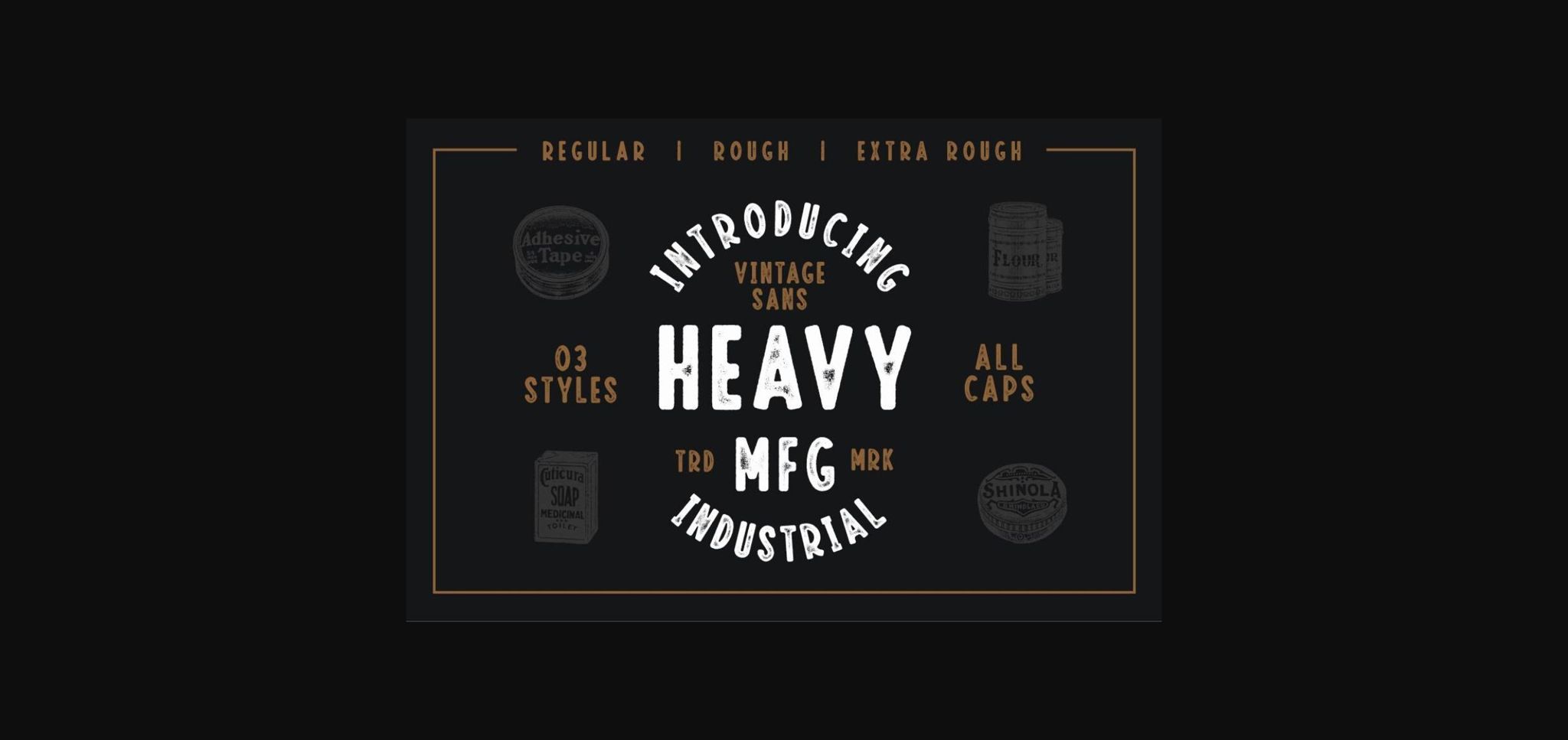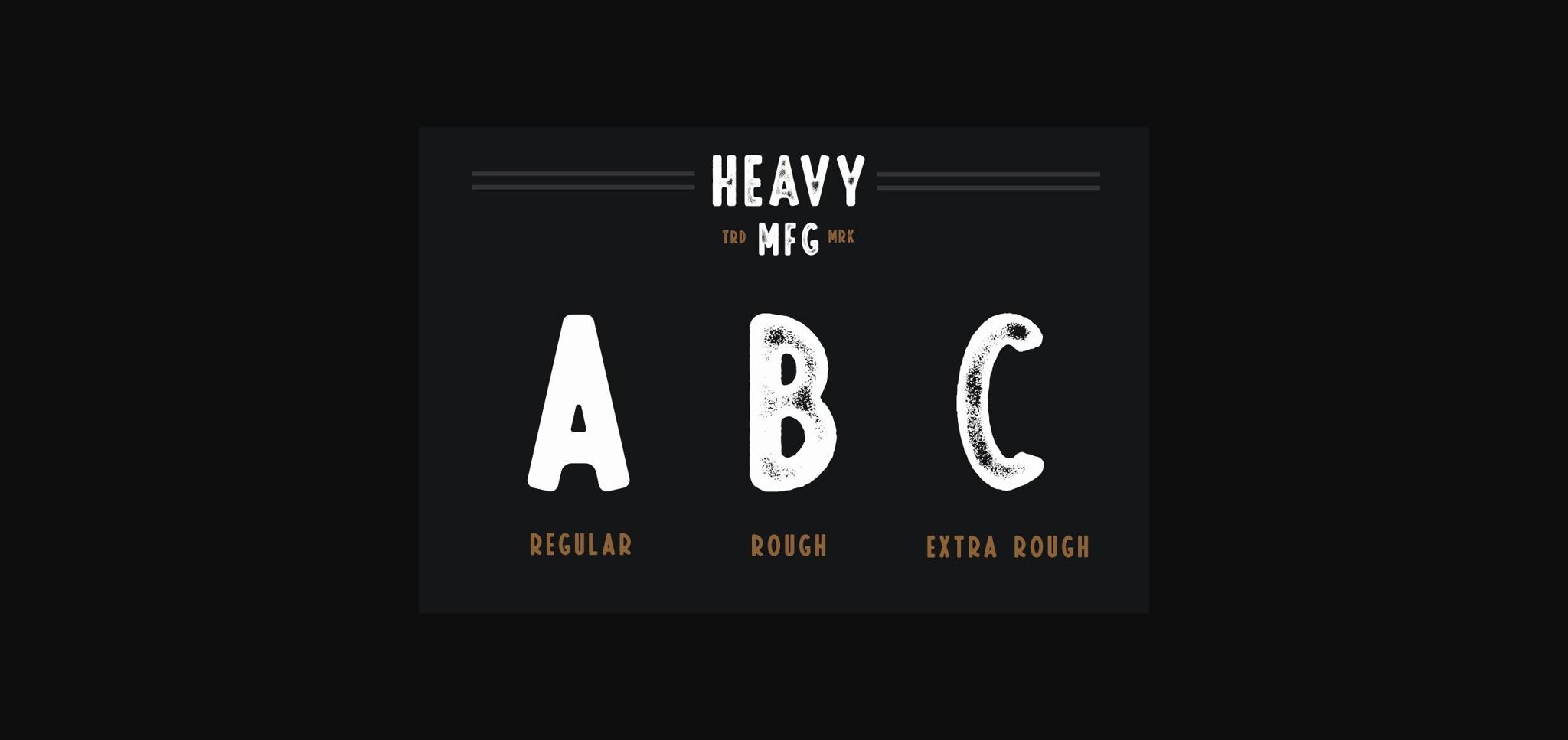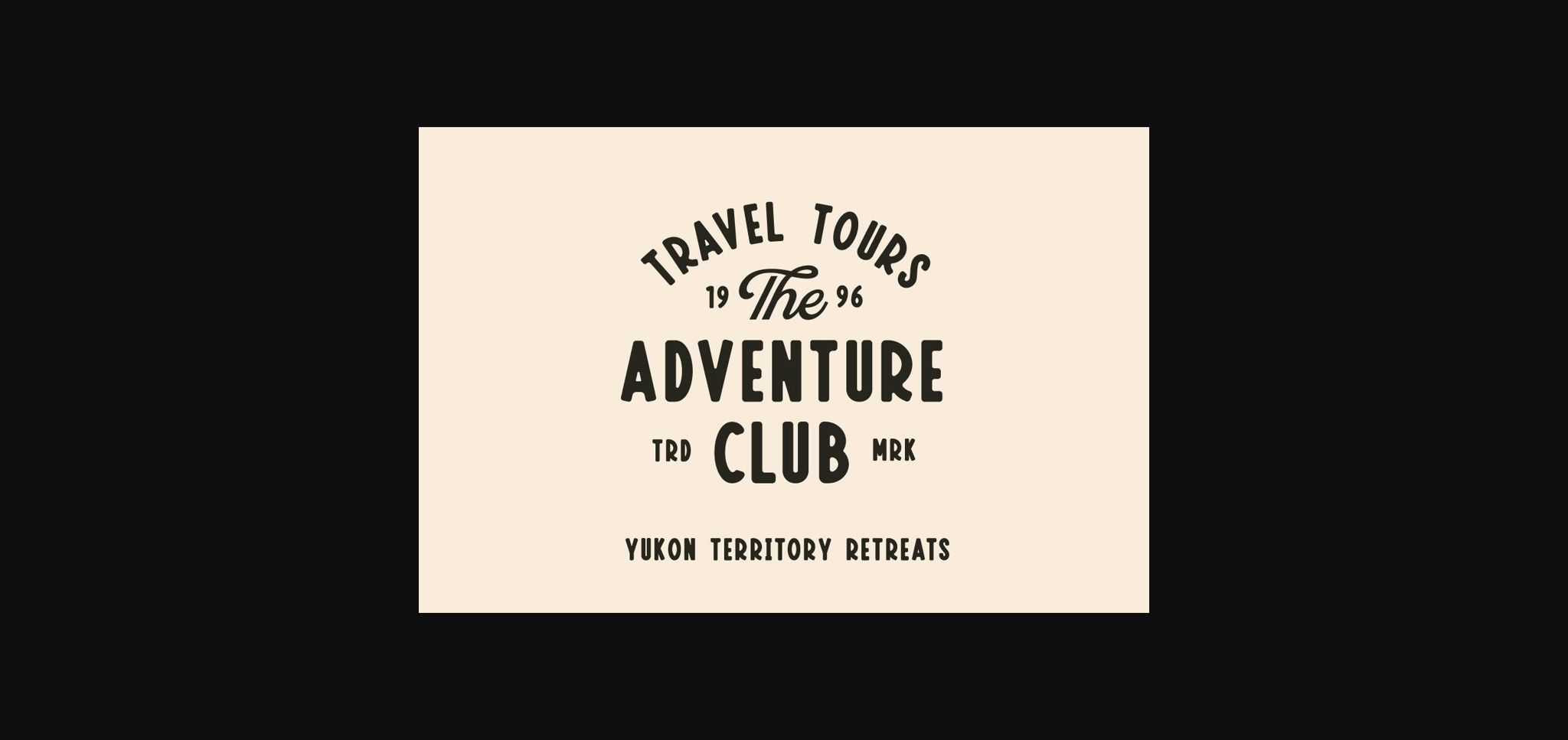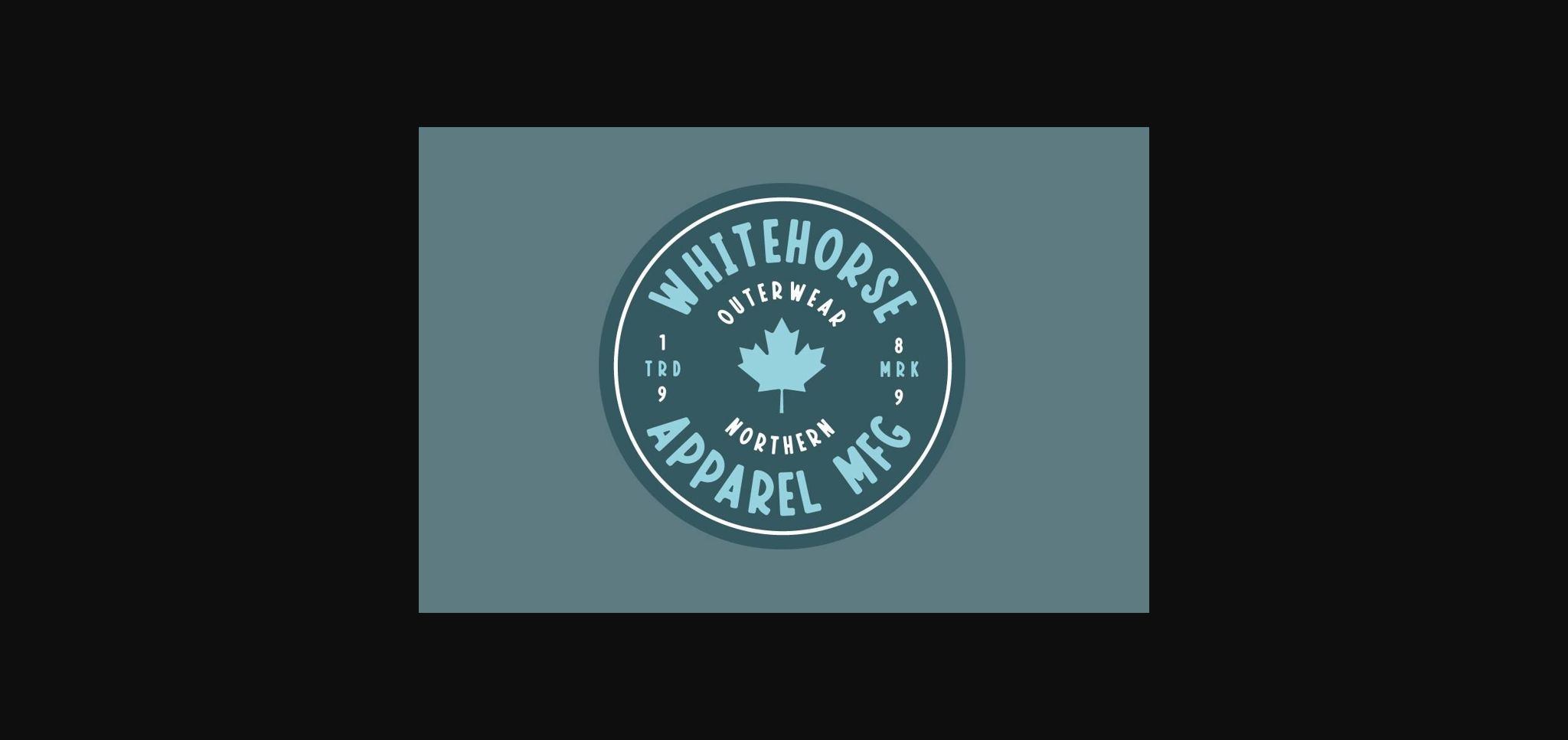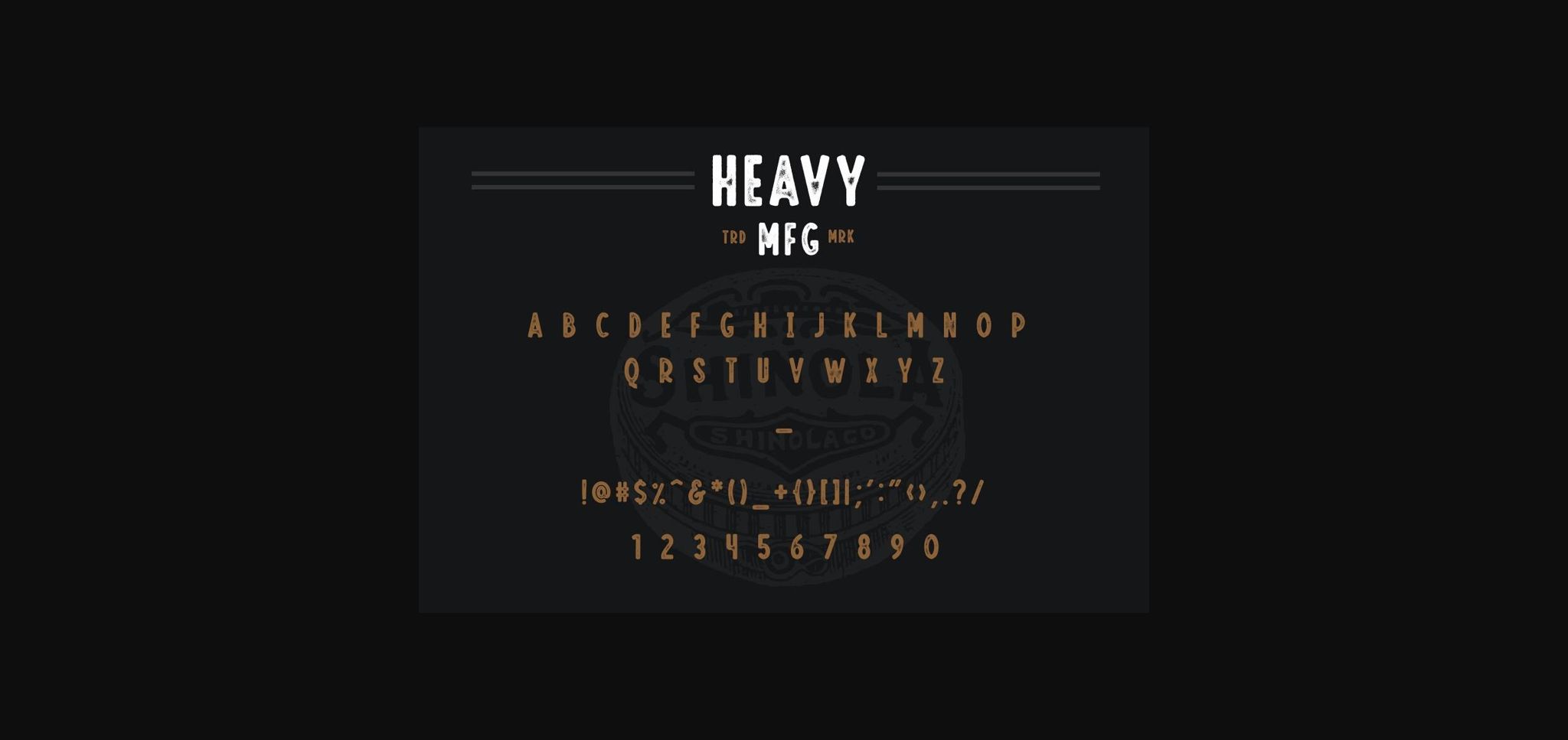
Heavy Mfg Font
About Heavy Mfg Font
Heavy MFG is a vintage press-inspired sans serif that features 3 styles: Regular, Rough, and extra Rough. Perfect for capturing the vintage aesthetic in any upcoming project. Use Heavy MFG for creating vintage industrial badges, lockups, logos & labels. Features multilingual characters.